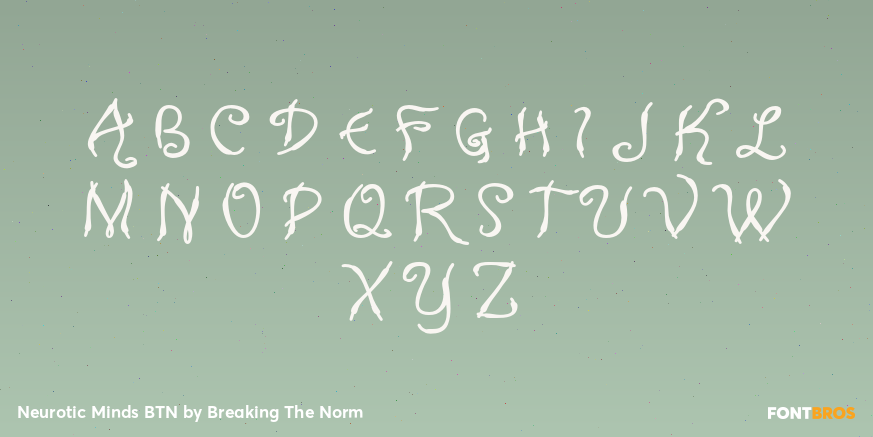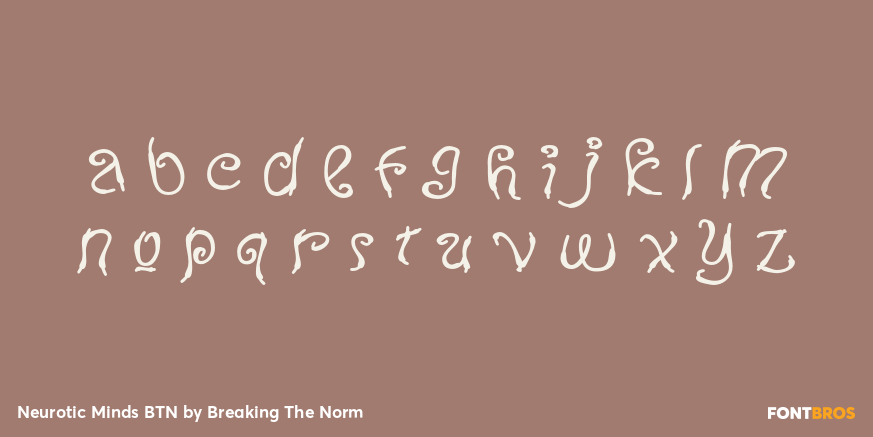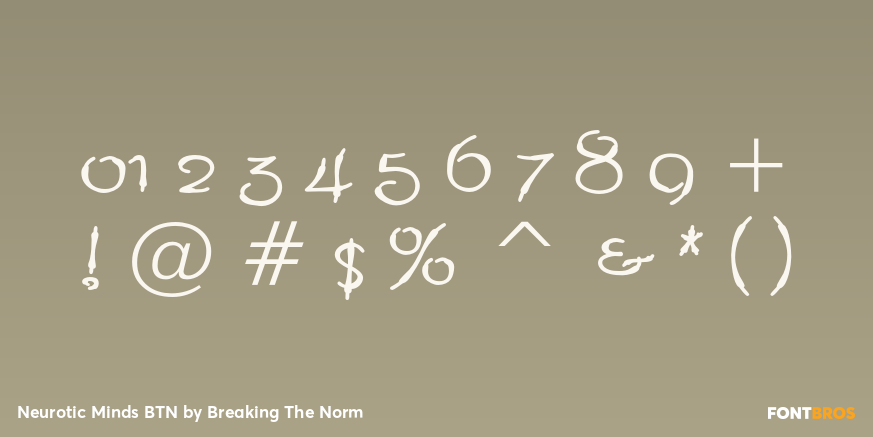
Neurotic Minds BTN
Font Family by Breaking The Norm
Neurotic Minds BTN is a playful, unconventional display family built from flowing, shoelace-like strokes and an intentionally mixed-up typographic attitude. With a character that questions traditional typesetting norms, it brings an offbeat, restless energy to the page that feels expressive, quirky, and visually unpredictable. The family is well suited for posters, album art, alternative branding, editorial headlines, packaging, and experimental design work that benefits from a more eccentric voice. With Regular, Bold, and Condensed styles, Neurotic Minds BTN offers a range of options for creating typography that feels lively, unusual, and full of character.